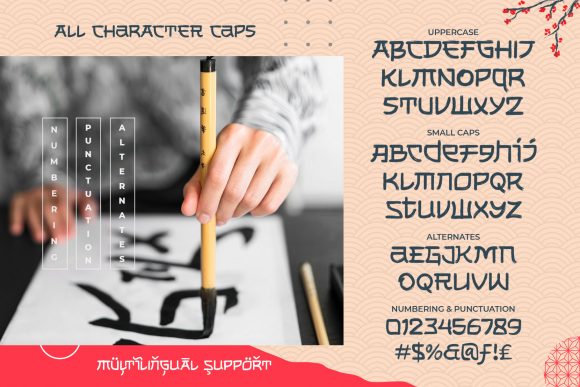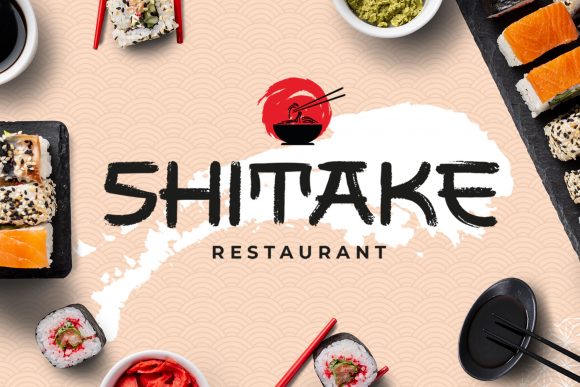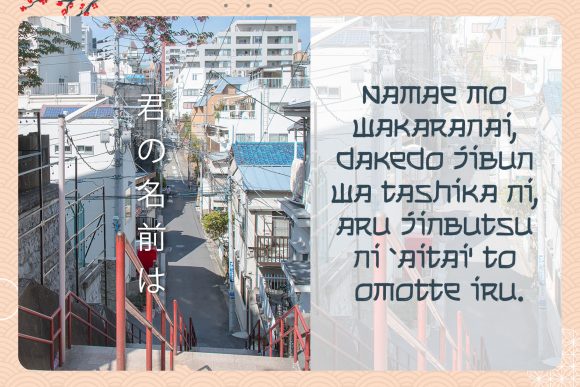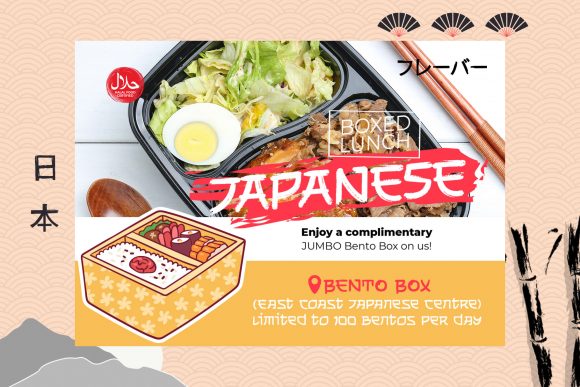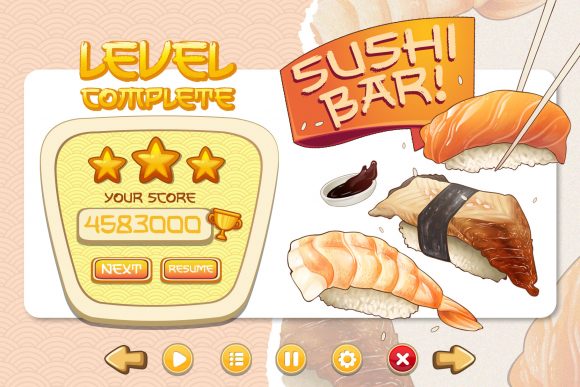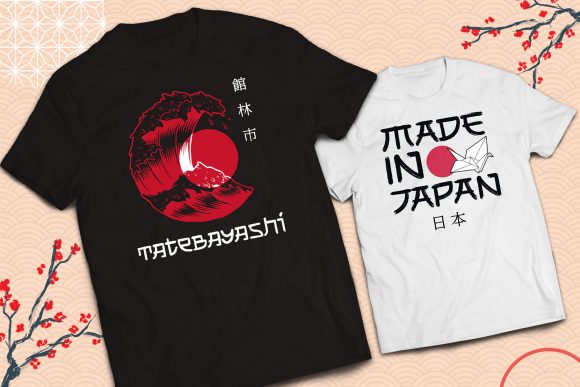
Introduction to Shikamaru Font
Have you ever stared at a blank canvas, struggling to find the perfect font to bring your creative project to life? It’s a moment we’ve all been there – the cursor blinks, and our minds go blank. But what if I told you there’s a font that can break the silence and add a touch of uniqueness to your designs?
Meet the Shikamaru Font, a Japanese-inspired brushed display font that’s about to become your new design best friend. With its high-quality strokes and subtle nuances, this font is the perfect addition to any creative project. Whether you’re working on a logo, a social media graphic, or a promotional poster, the Shikamaru Font is sure to make your designs stand out from the crowd.
Key Features of Shikamaru Font
- High-quality, unique font design suitable for creative projects, with a transparent background for flexibility in design.
- Unique characteristics: Shikamaru Font features a distinctive, bold, and modern design, perfect for making a statement in creative projects.
Honest Review: Shikamaru Font
I recently had the chance to experiment with the Shikamaru Font, and I must say it’s been an exciting experience. This font is perfect for any creative project where you want to add a touch of elegance and sophistication.
One of the standout features of the Shikamaru Font is its high quality design, which makes it suitable for both web and print use. The transparent background is a great option for designers who want to create a seamless and cohesive look.
Here are some things that work well with the Shikamaru Font:
- ✨ Unique and elegant design that adds a touch of sophistication to any project
- ⚠️ Limited language support, which might be a concern for designers who work with multiple languages
- ⚠️ Not suitable for use in small text sizes, as it may become difficult to read
Overall, I’m quite impressed with the Shikamaru Font, and I would definitely recommend it for any creative project where you want to add a touch of elegance and sophistication. With its high quality design and transparent background, it’s an excellent design resource for designers.
The Shikamaru Font is a unique and versatile design resource ideal for creative projects. With its high-quality and free download feature, it’s perfect for designers, artists, and writers looking for a distinctive touch.
Tips for Getting the Most Out of Shikamaru Font
To get the most out of the Shikamaru Font, experiment with different font sizes, colors, and styles. You can also pair it with a transparent background to create a stunning design. Additionally, use the font in creative ways, such as in logos, headings, or quotes.
The Shikamaru Font is perfect for a variety of creative projects, including logos, business cards, posters, and social media graphics. Its high-quality and unique design make it an ideal choice for designers and artists looking to add a distinctive touch to their work.